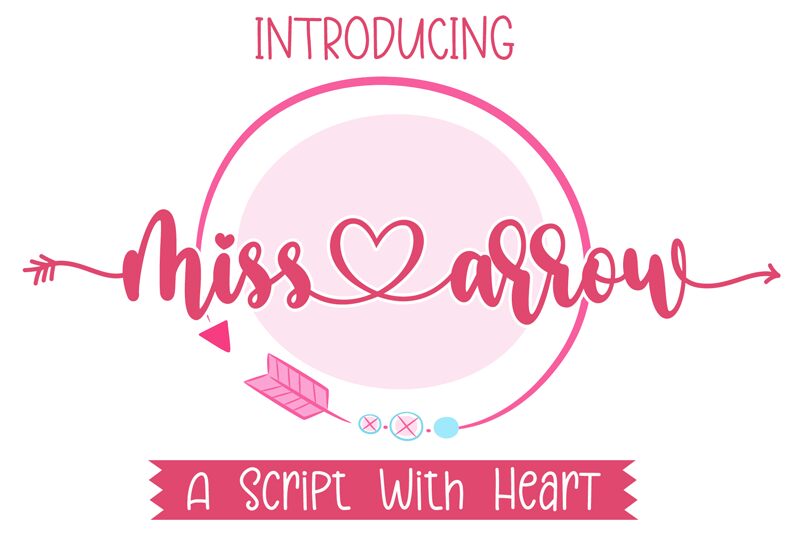
Miss Arrow is a stunning calligraphy font designed by Bearytype. Its semi-condensed width makes it perfect for projects that require an elegant yet space-saving font. The fluid strokes and delicate curves of Miss Arrow make it ideal for wedding invitations, greeting cards, and feminine branding projects. With its stylish and sophisticated look, this semi-bold typeface is also suitable for luxury fashion magazines, beauty blogs, and high-end product packaging. Let Miss Arrow elevate your designs with its graceful charm and timeless appeal.